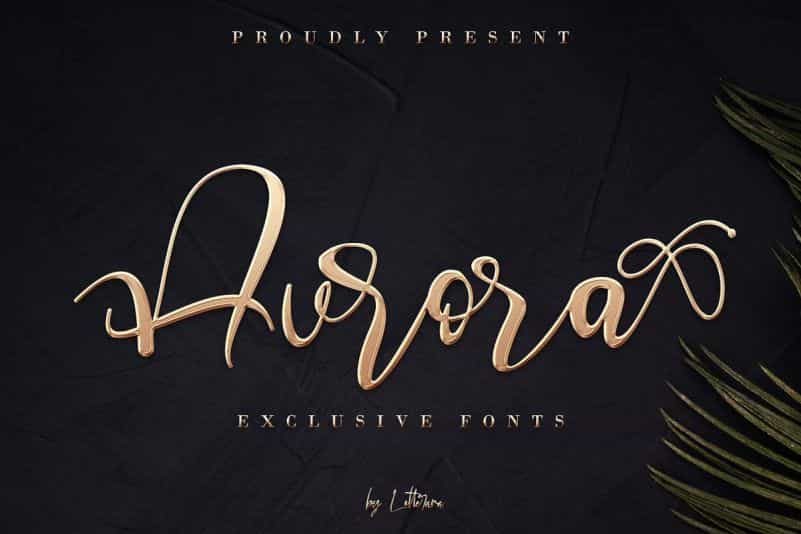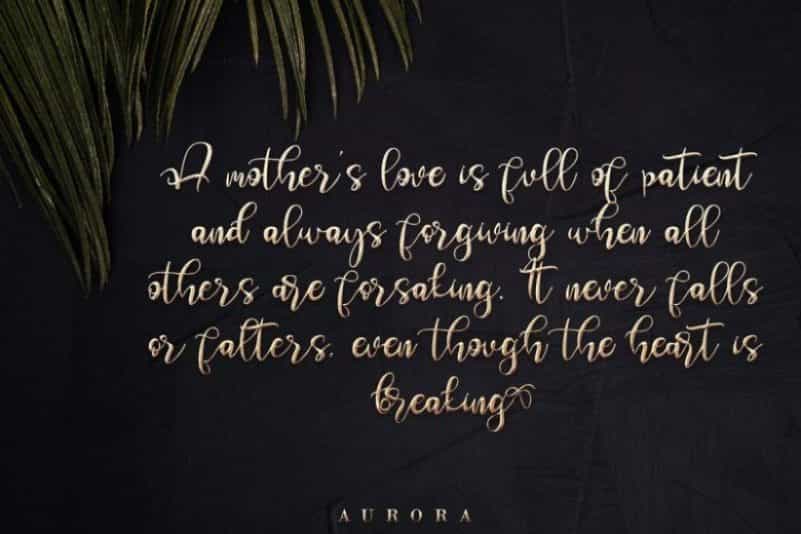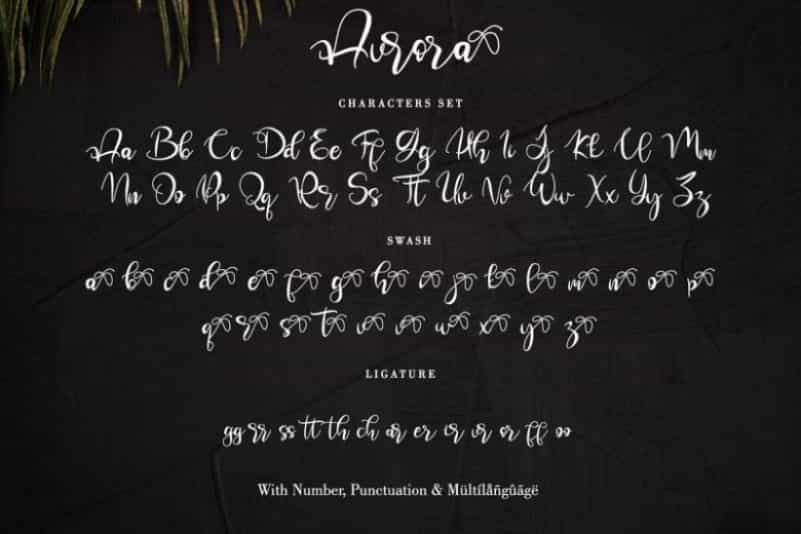
Aurora Font is a modern calligraphy font that is available on Leterara. This is a font bold, so, calligraphy script that is beautiful and unique, it is a model of modern calligraphy typefaces, in combination with a calligraphy writing style. Aurora is a friendly and icy script typeface suitable for making your design concept fun and enjoyable.